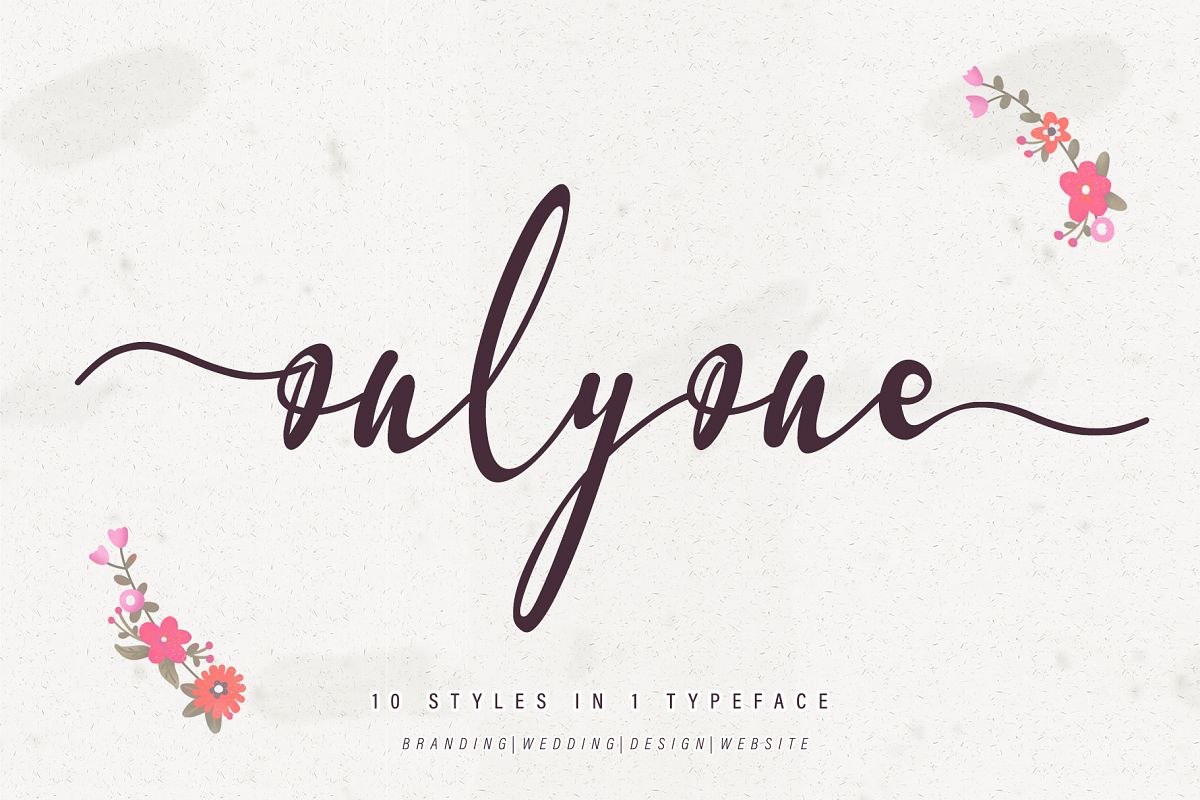
The onlyone is a stylish, unique, handwritten family that is easy to remember. It’s great for unique branding, photo overlays, watermarks, business cards, invitations, wedding, photography, fashion, etc.
This font is available in 10 fonts in 1 typefaces : Thin, Light, Regular, Semi Bold, Bold, Thin Italic, Light Italic, Semi Bold Italic, Bold Italic
and most importantly, Onlyone is perfect for you.